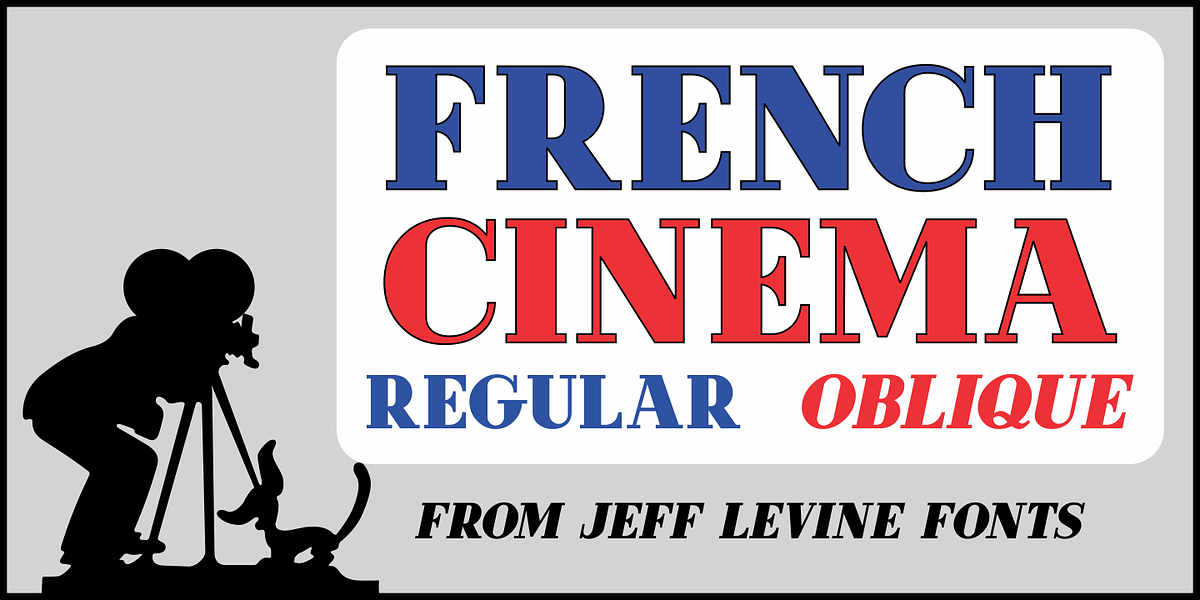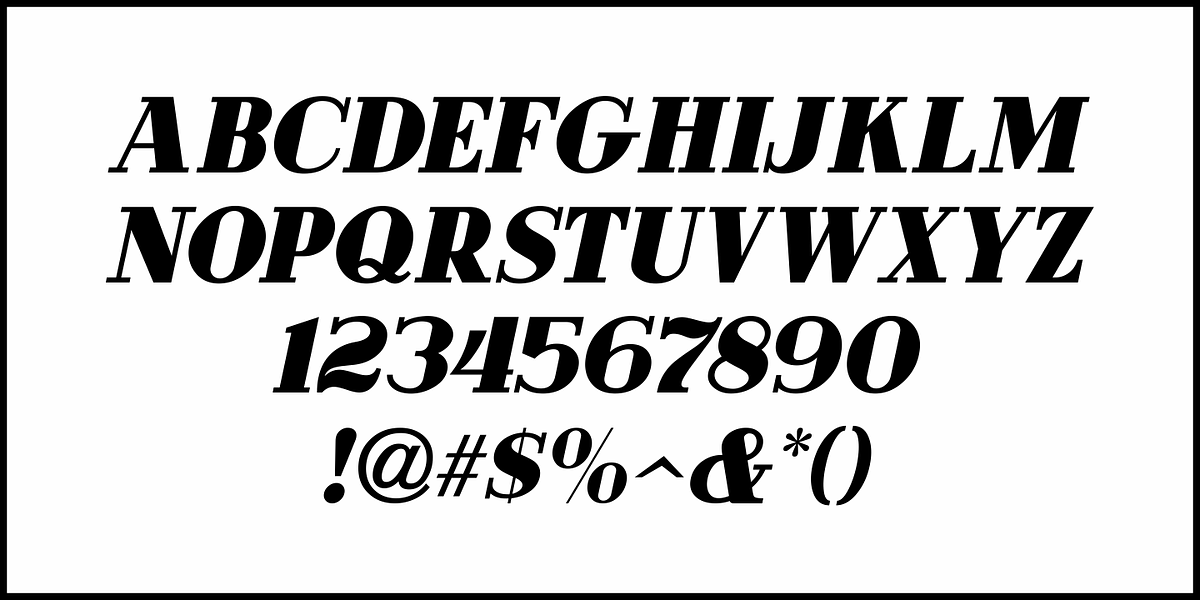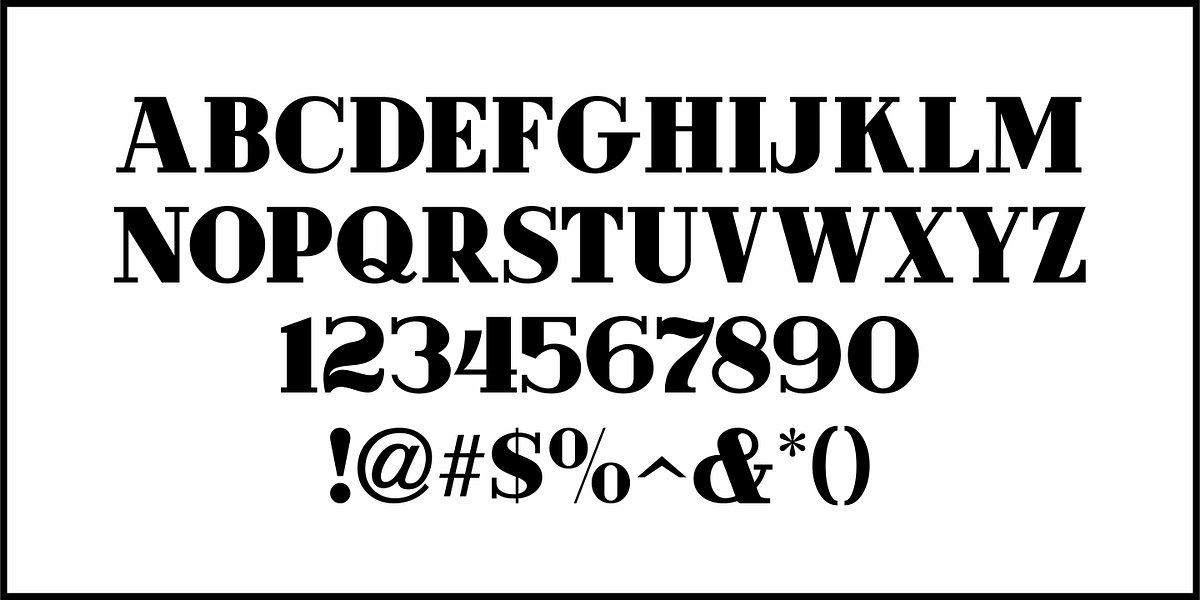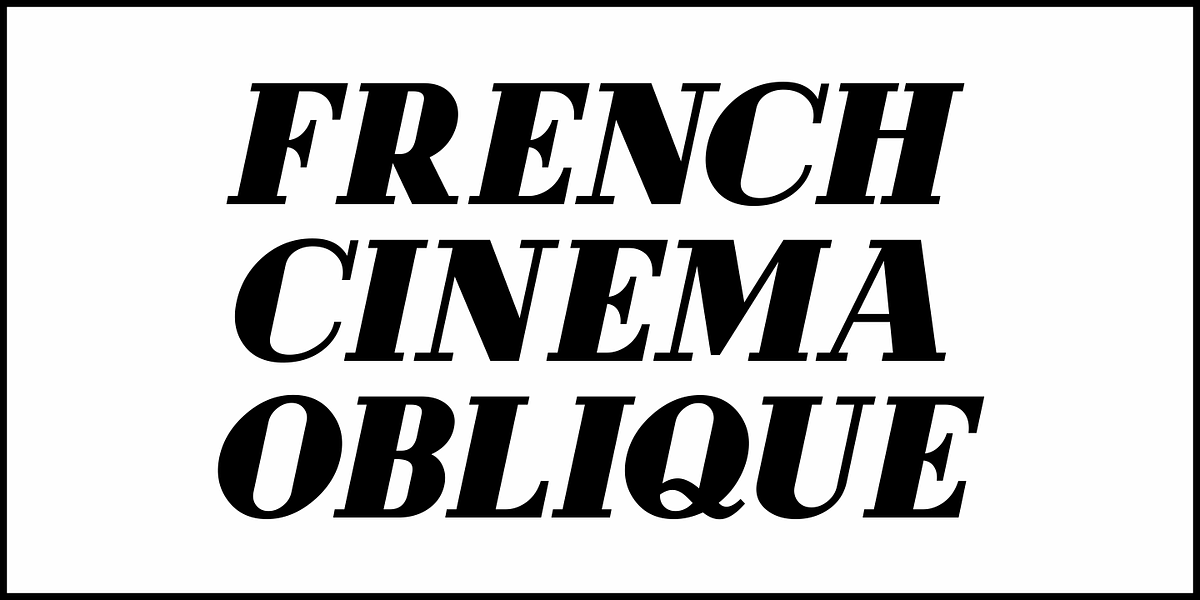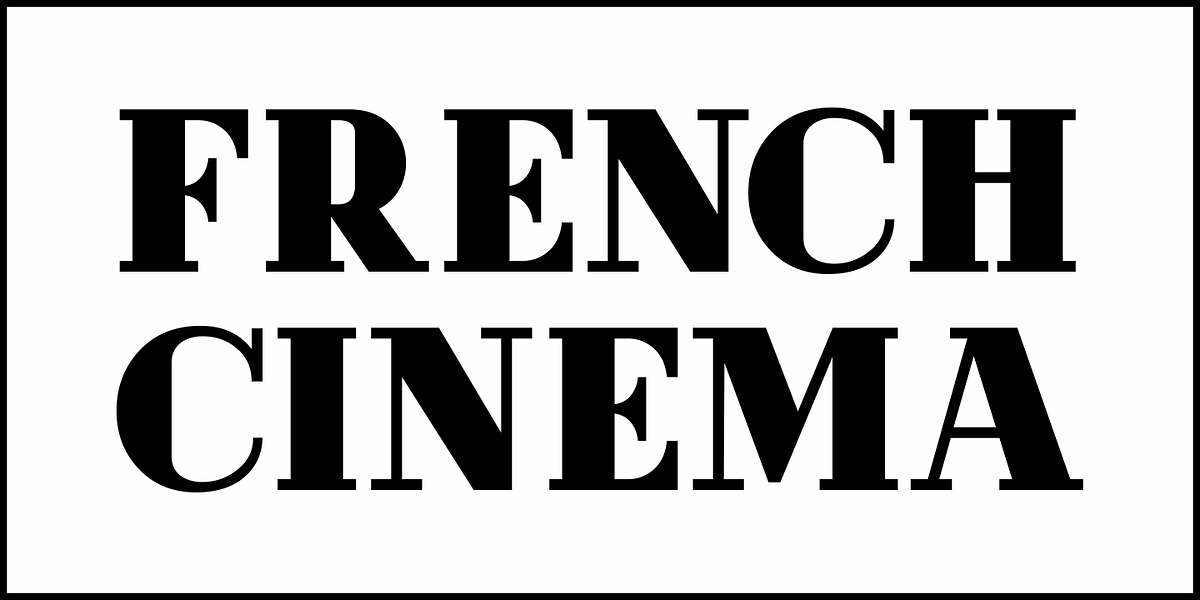
French Cinema JNL
The hand lettered title credits for the 1950 French film “Lady Paname” inspired French Cinema JNL, which is available in both regular and oblique versions.